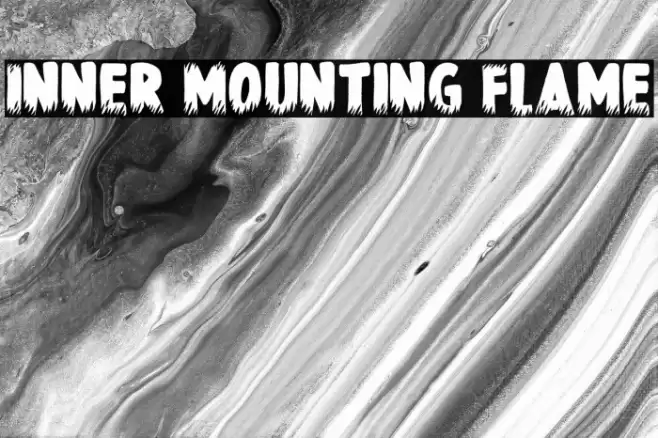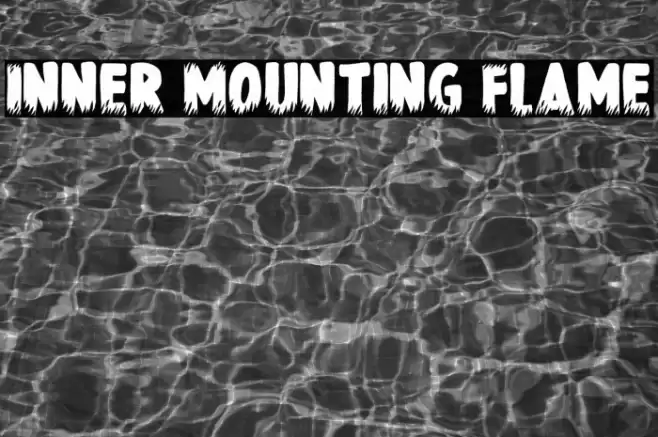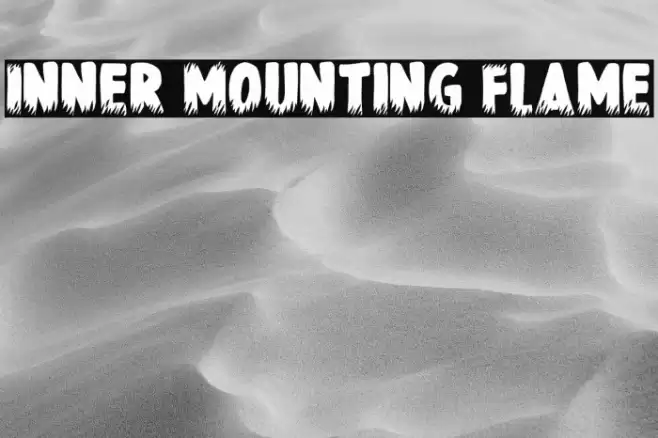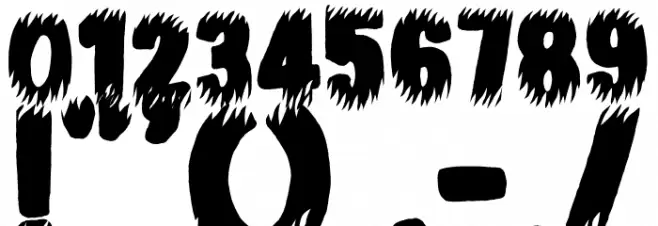
Inner Mounting Flame Font
Inner Mounting Flame Description
This font features a bold and dynamic design with jagged, flame-like edges that give it a fiery and energetic appearance. The uppercase and lowercase letters are crafted with a sense of movement and intensity, making them stand out with a striking visual impact. The numbers and special characters follow the same theme, maintaining consistency across the entire set. The font's unique style is reminiscent of flames or sharp, edgy textures, making it ideal for projects that require a dramatic and eye-catching typeface.
A bold, flame-inspired font with jagged edges and dynamic style from Regular fonts.
- Proposed Projects: Ideal for use in posters, album covers, event flyers, and any design requiring a bold, fiery aesthetic.